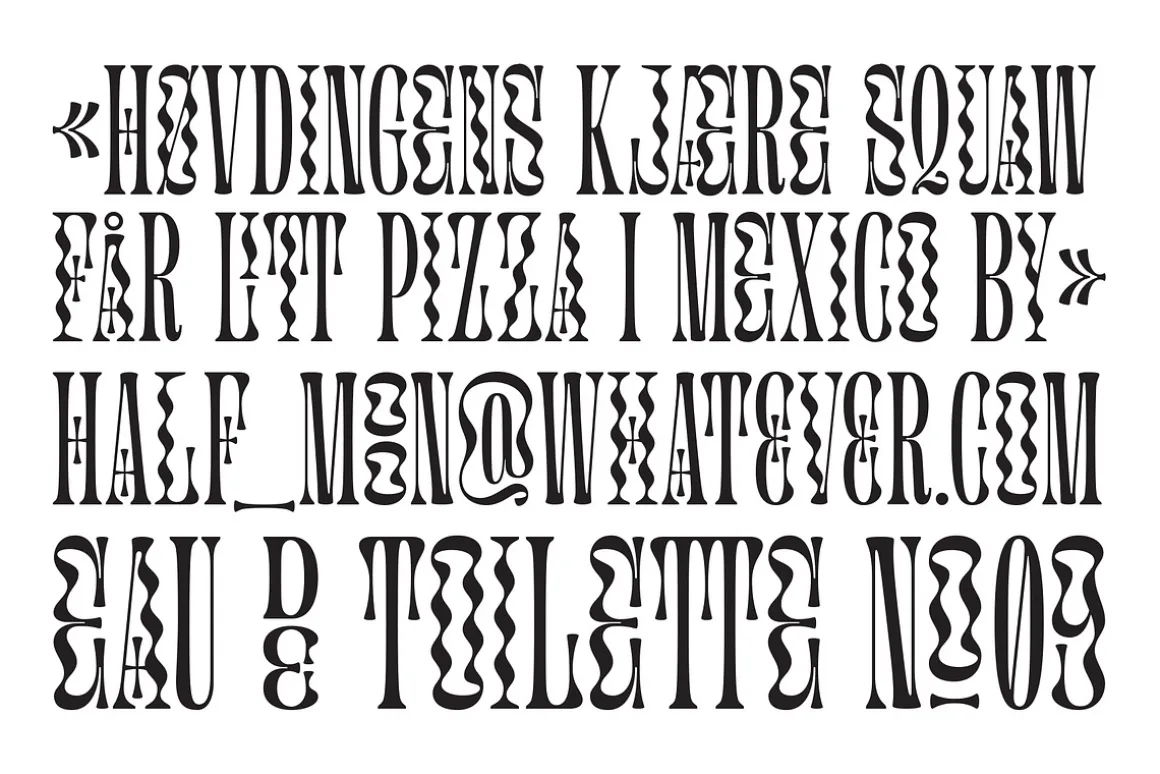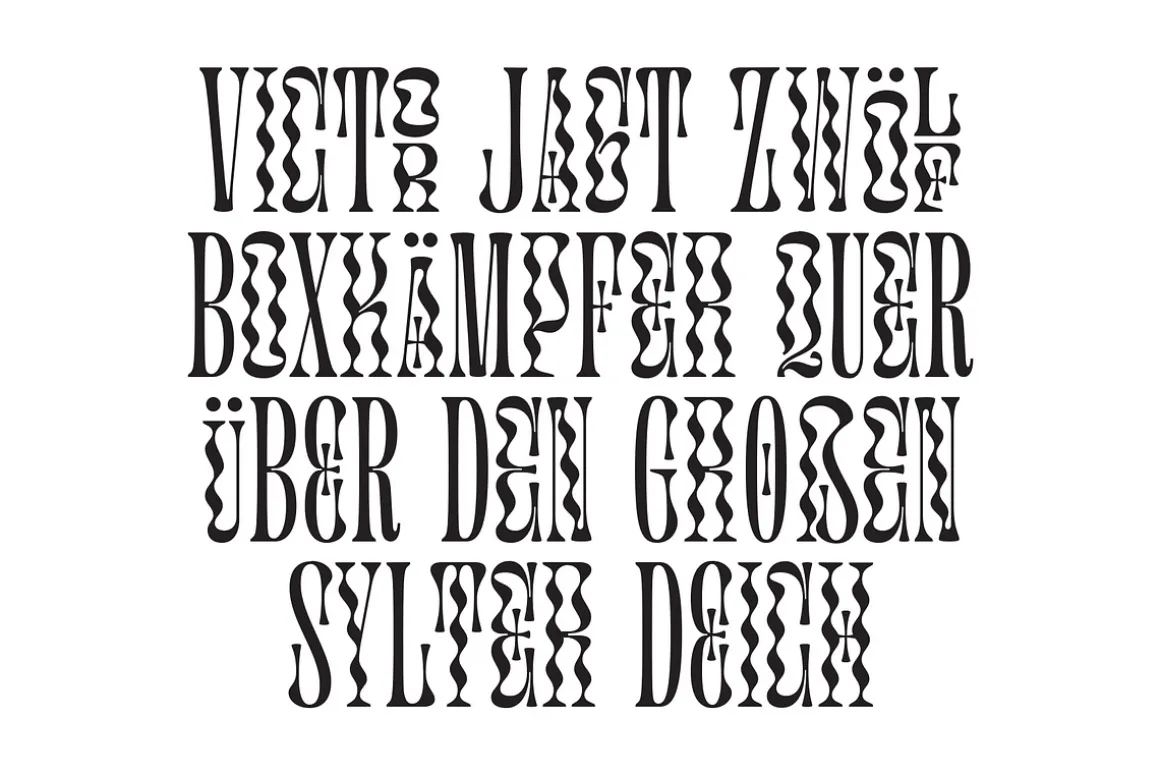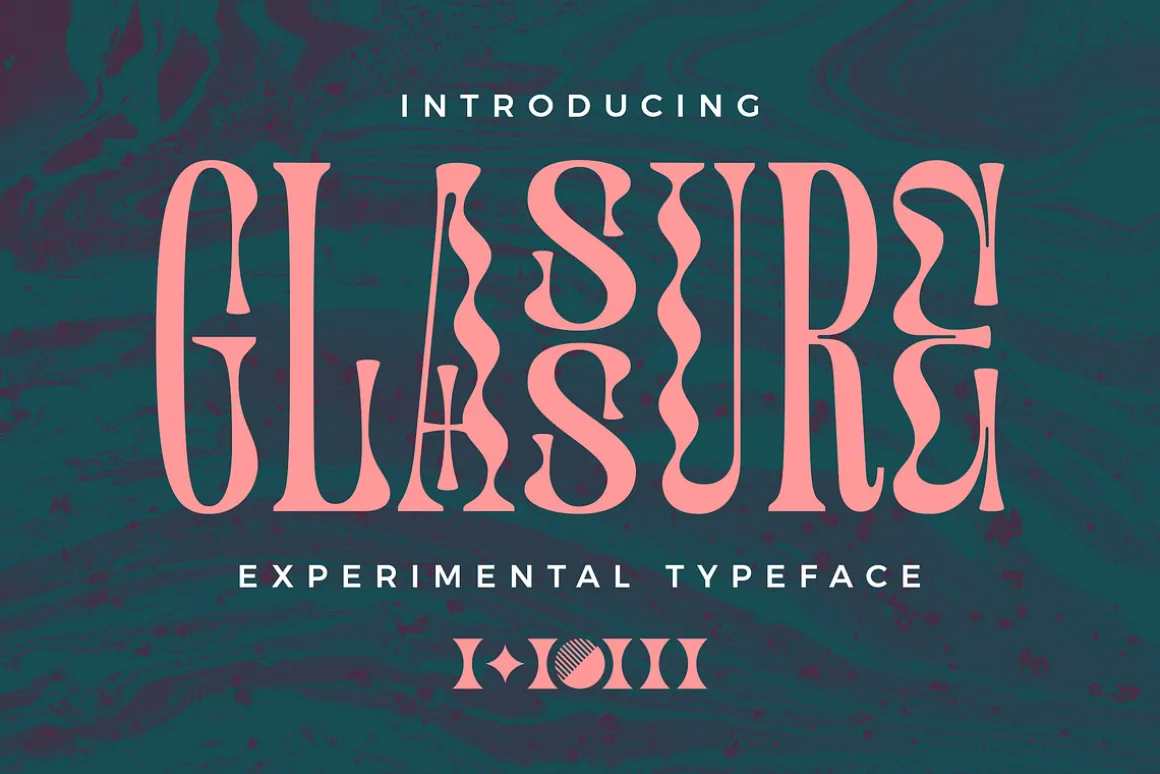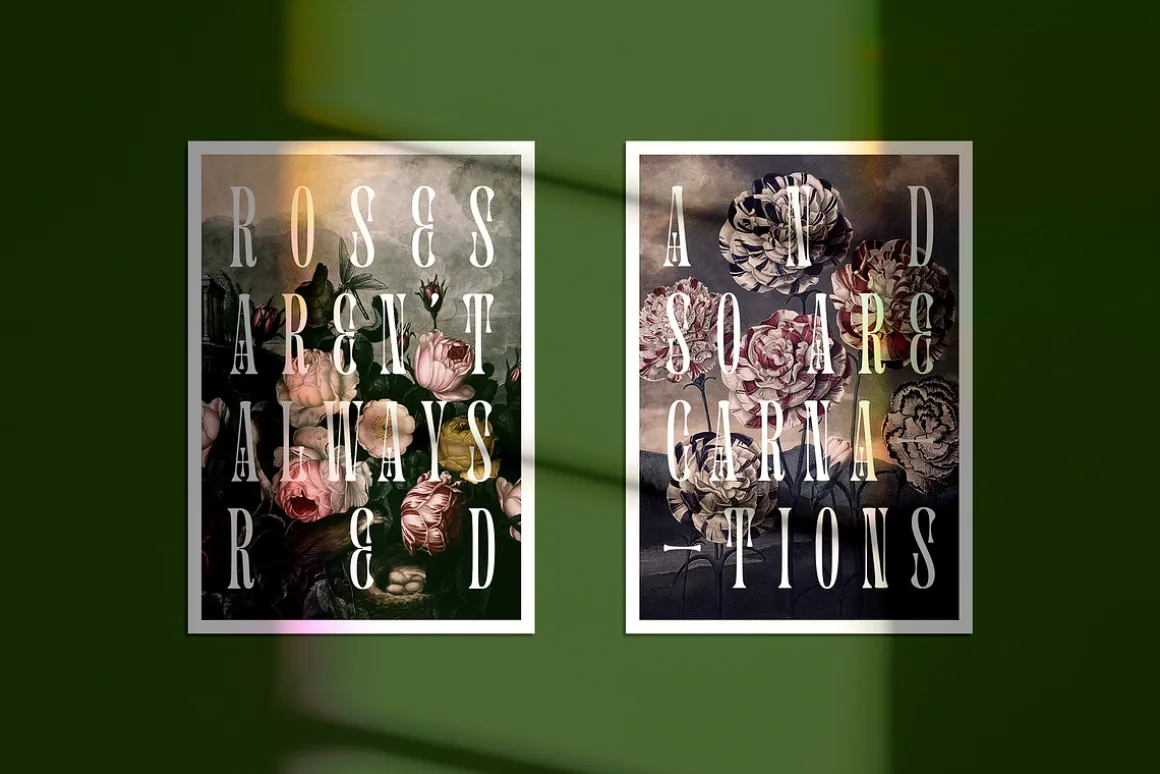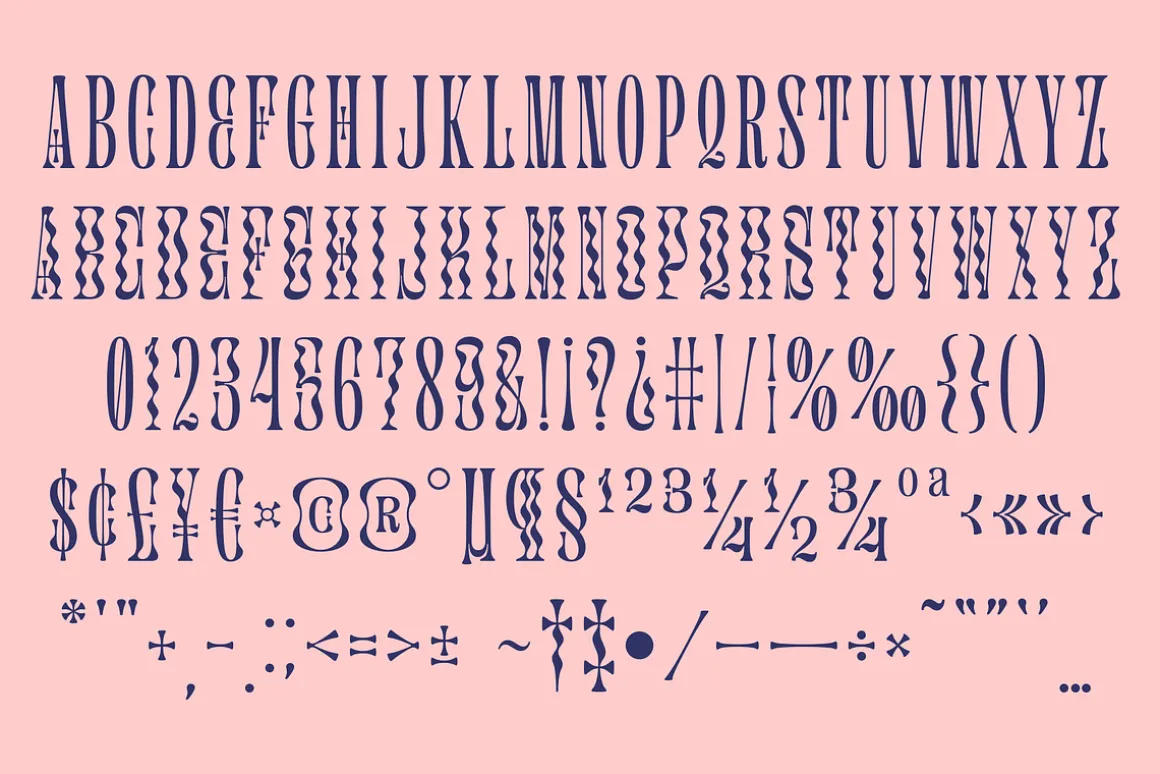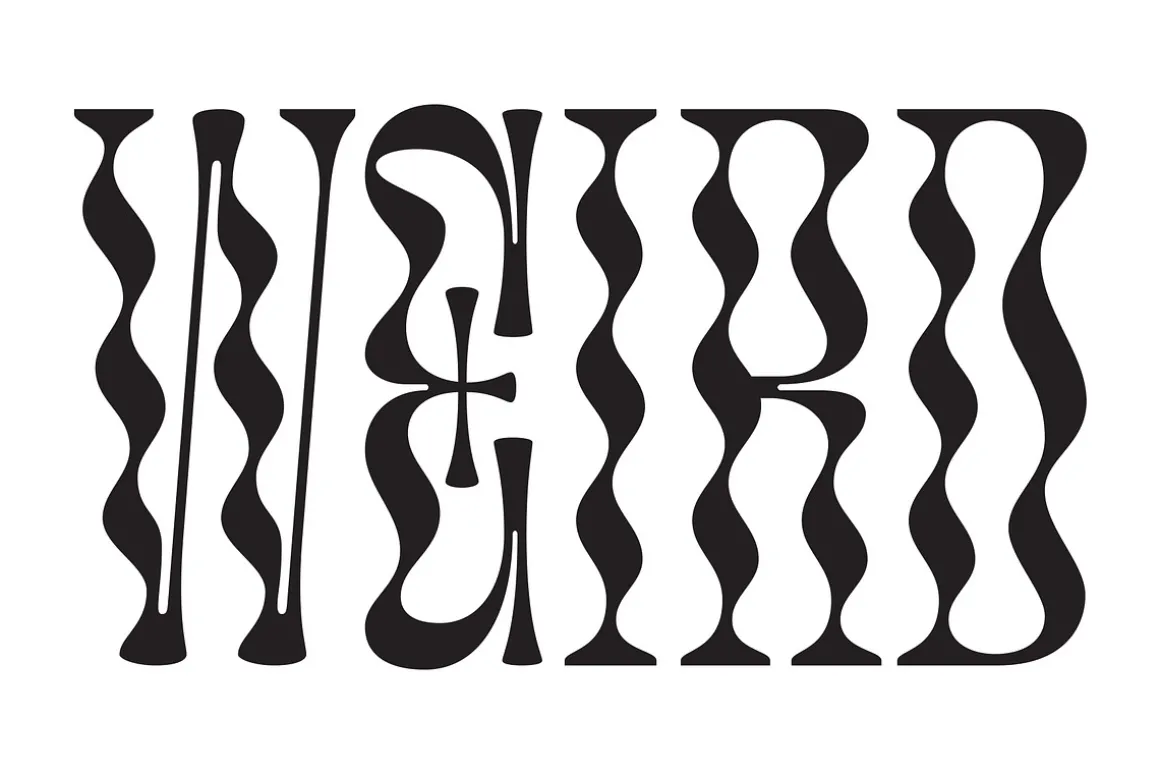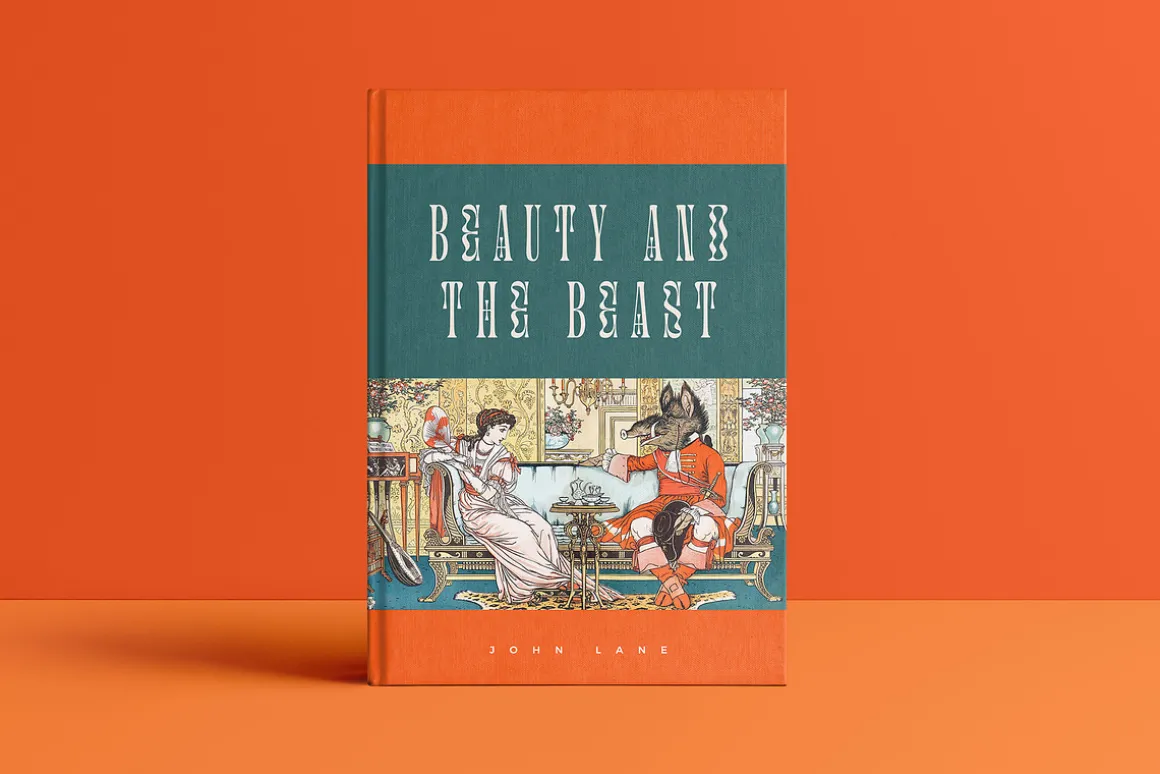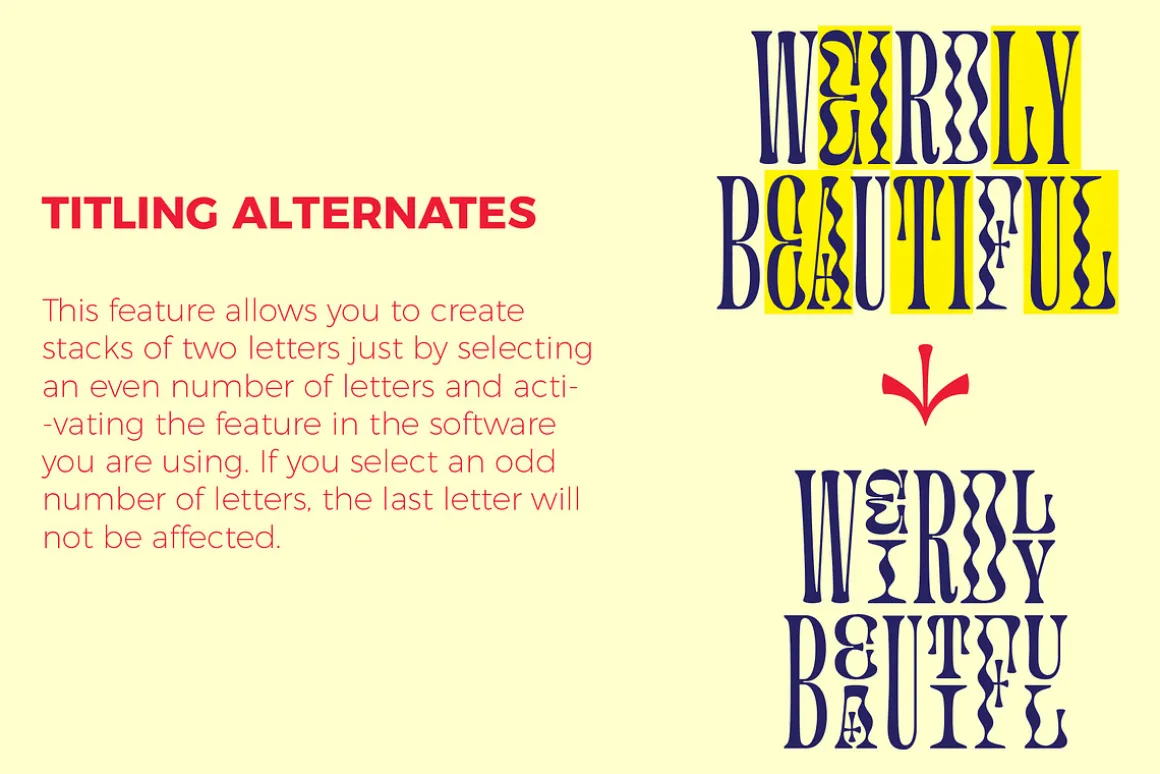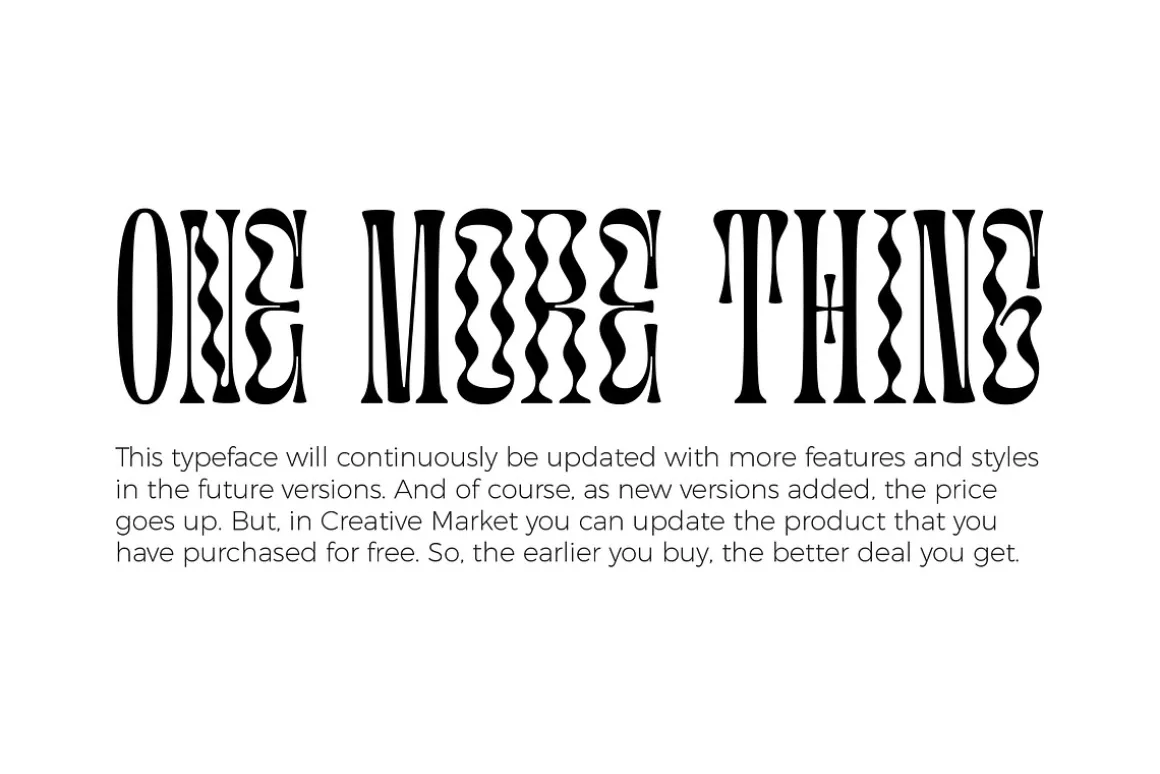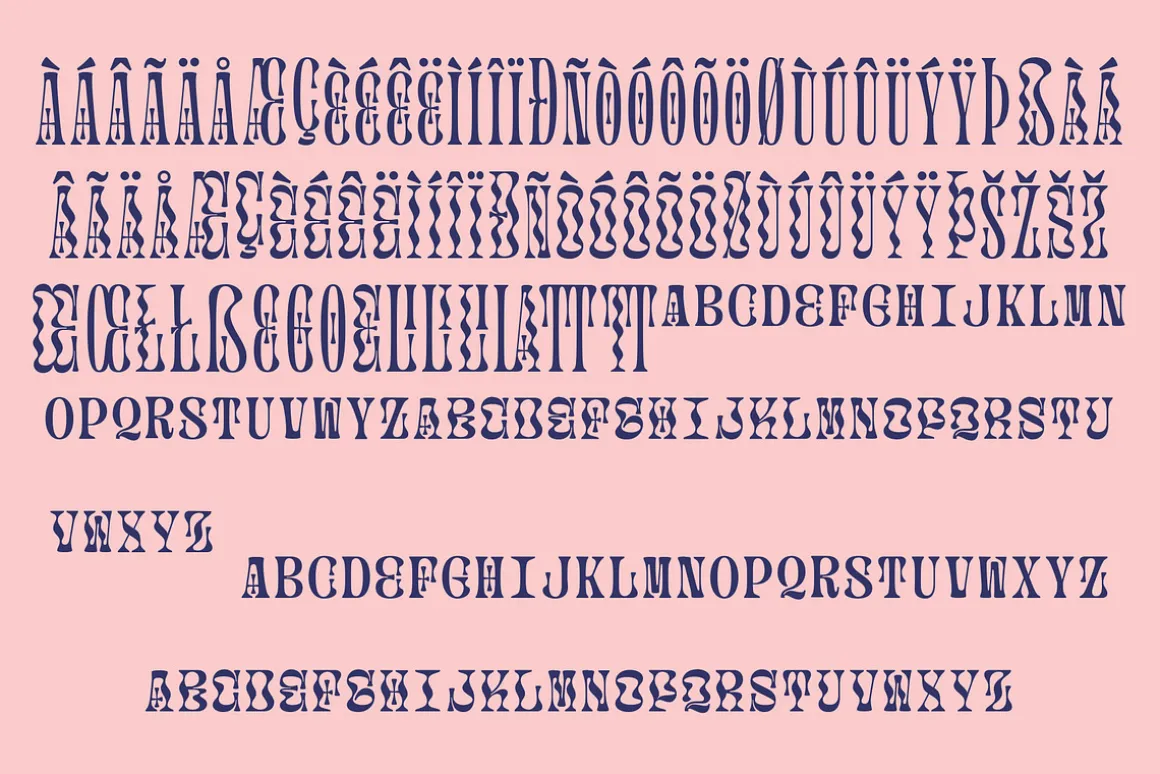
Glassure is an experimental typeface that is inspired by every pull and curl in the process of making glass sculptures, weird yet beautiful marble pattern, and a little touch of art nouveau and vintage style. Combine the uppercases, lowercases and other feature to get the look that you want. There is a unique feature in this typeface that allows you to make two-letters block just by selecting an even number of letters and activating the ‘titling alternates’ in the software you are using.
- Standard Basic Latin Uppercase and Lowercase
- Numeral and Punctuation
- Multilingual Characters
- Titling Alternates
- Discretionary Ligature
- Stylistic Sets